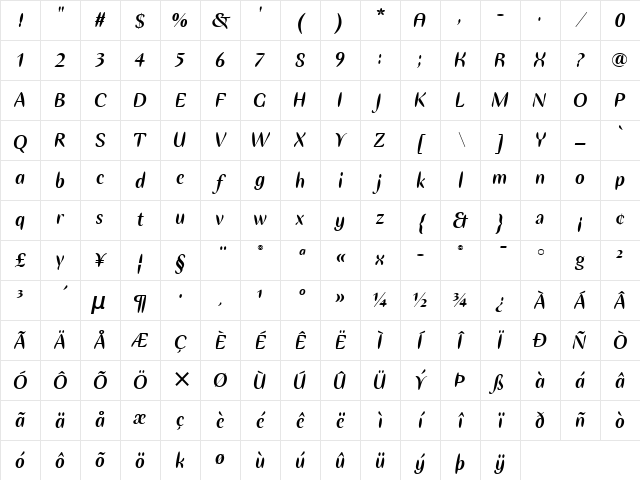
Complete Ellipse ITC Bold Italic glyph index. Displaying only characters natively supported by Ellipse ITC Bold Italic font.
Ellipse ITC is a composed and adaptable typeface that performs quietly and consistently across a wide range of design contexts. The slanted form adds forward momentum and visual energy. Its bold stroke weight gives it real presence on the page.
Pro Tip: Use Ellipse ITC for emphasis, pull quotes, and subheadings where its slanted energy can add rhythm to the layout.